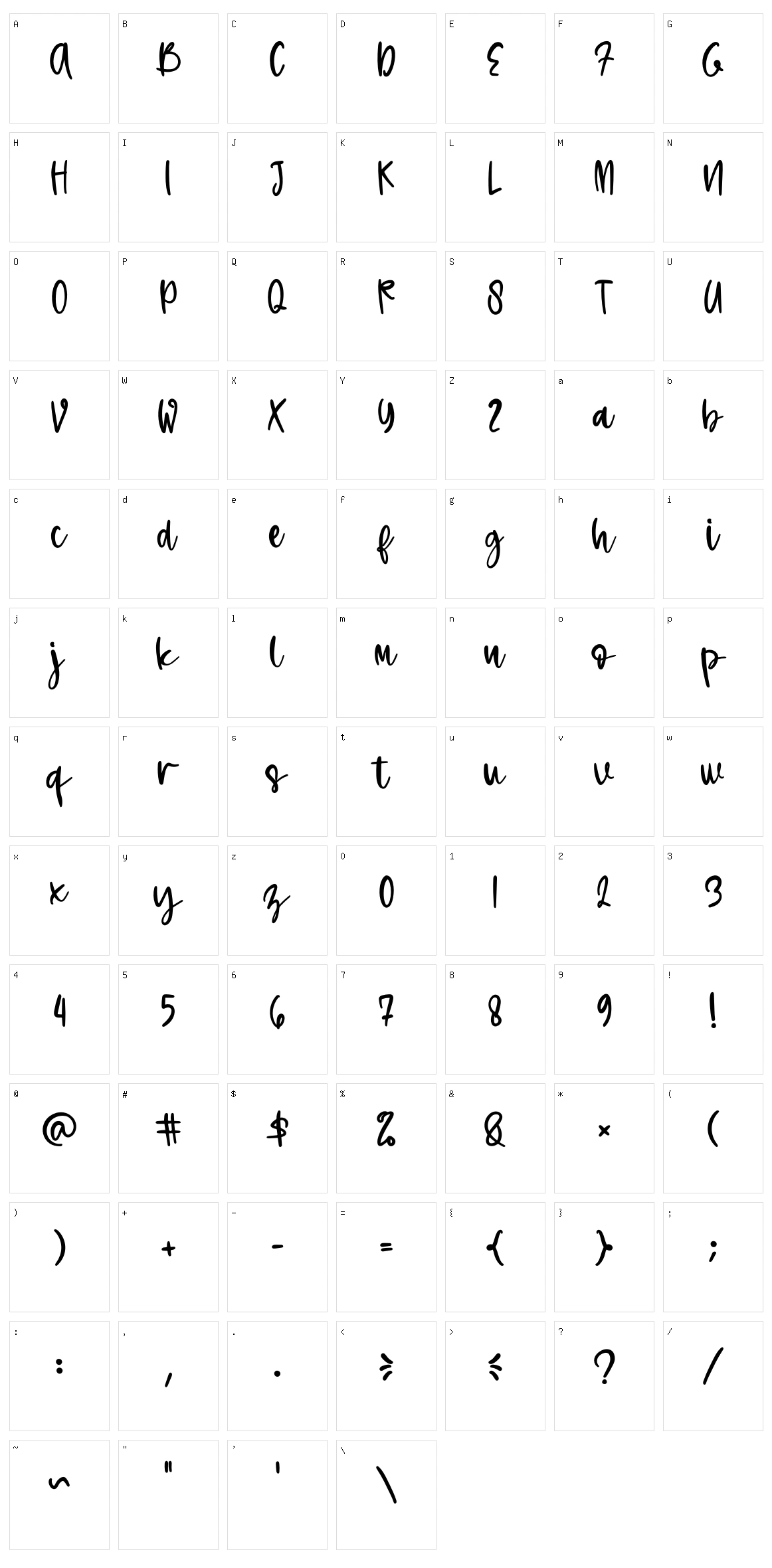
The free font Sakura in Kyoto is carefully designed by Creative Zone, showcasing a thoughtful balance of creativity and usability and falls under the Script font style. When you download the ZIP file, it contains only 56.98 KB of font files, making it lightweight and quick to download. Please review the license details below to understand permitted usage and distribution rights. If license information is not available, we recommend using this font for personal projects only or contacting the author directly for commercial usage permissions.